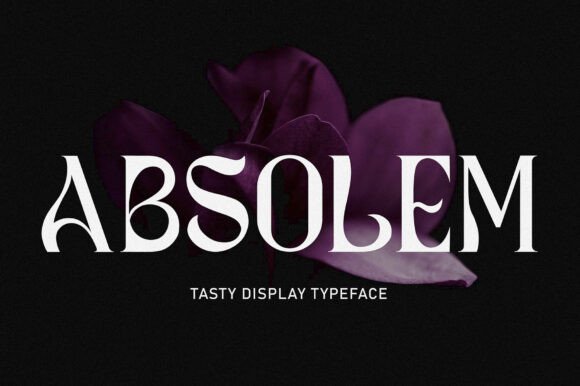
Introducing Absolem, the font that will redefine your design endeavors! Prepare to be captivated by its peculiar charm - a harmonious blend of happiness, weirdness, and pure wonder. Absolem is the ultimate choice for projects seeking a distinctive and avant-garde flair.
Unleash your creativity with Absolem, the font that captivates and enchants. Its magical quality and eerie vibe make it the perfect choice for headlines that demand attention, packaging that exudes uniqueness, and posters that leave a lasting impression. As a display font, Absolem excels in any context, adding a touch of intrigue and fascination to your creations.
Step into a world of limitless possibilities with Absolem, crafted by the talented Anastasia Cooper. Let your imagination run wild as you explore the endless design opportunities this font presents. From bold headlines that command attention to captivating posters that ignite curiosity, Absolem empowers you to create visual masterpieces that resonate with your audience.
With Absolem, you'll discover a world of typographic artistry that transcends the ordinary. Its captivating curves and striking edges will leave an unforgettable mark on your designs, ensuring that your message is not just seen, but felt. Embrace the extraordinary with Absolem, and unlock the true potential of your creative vision!